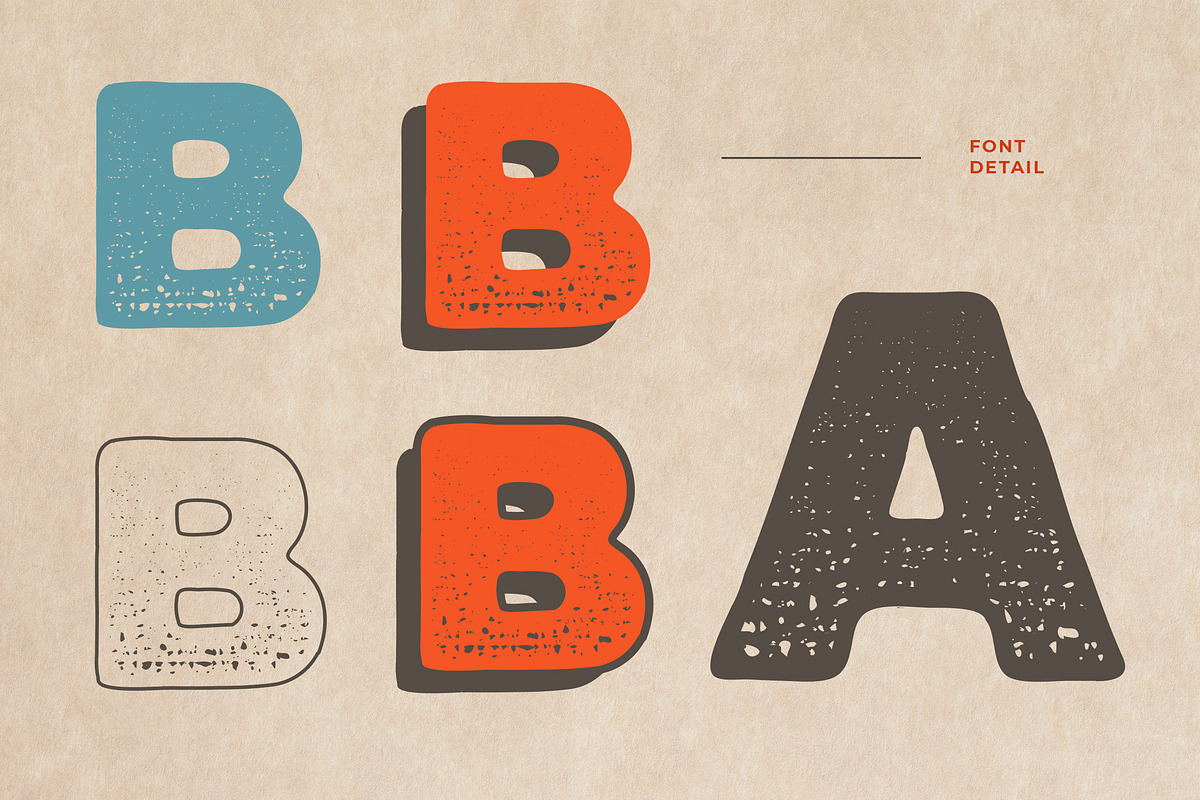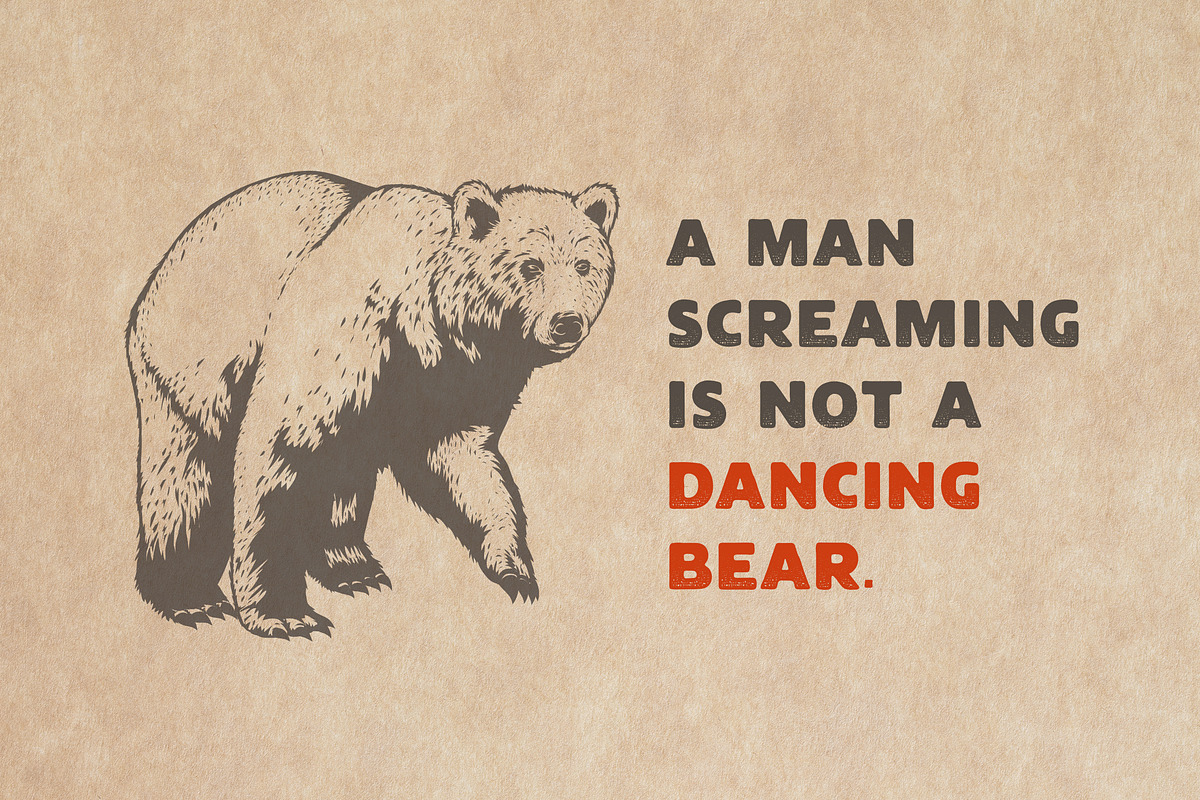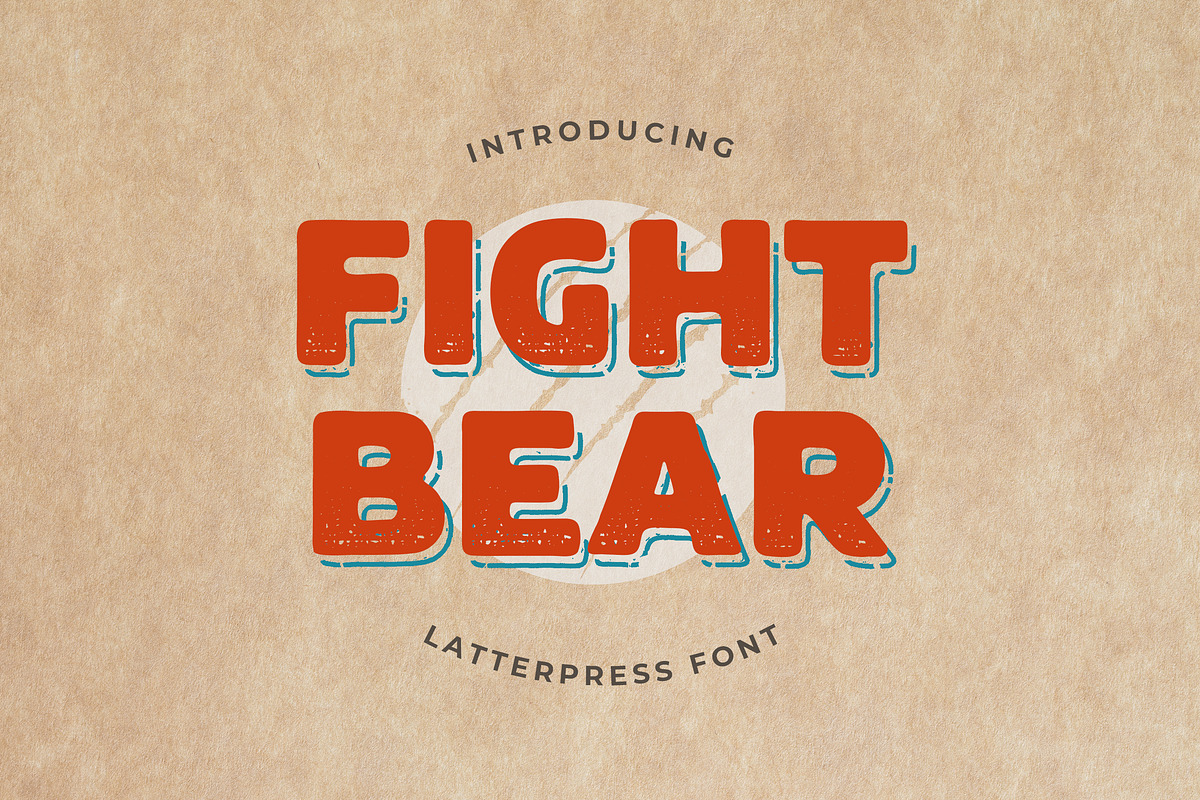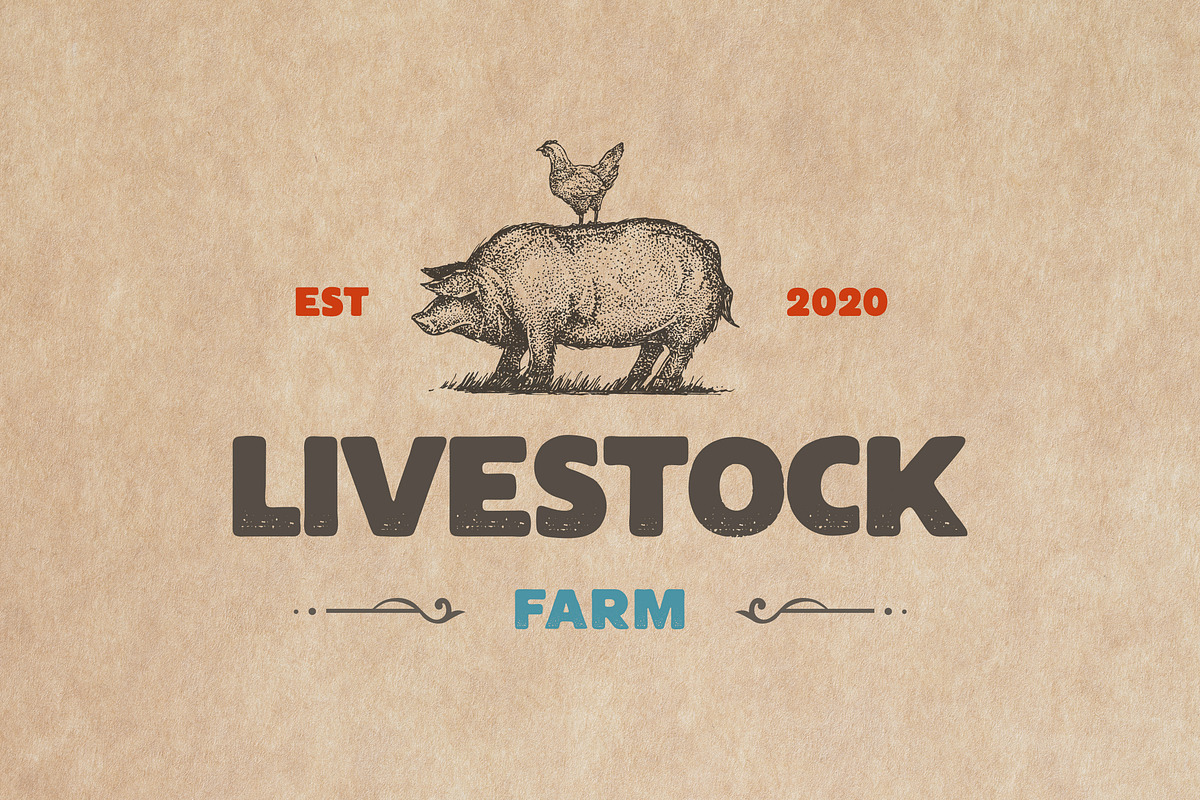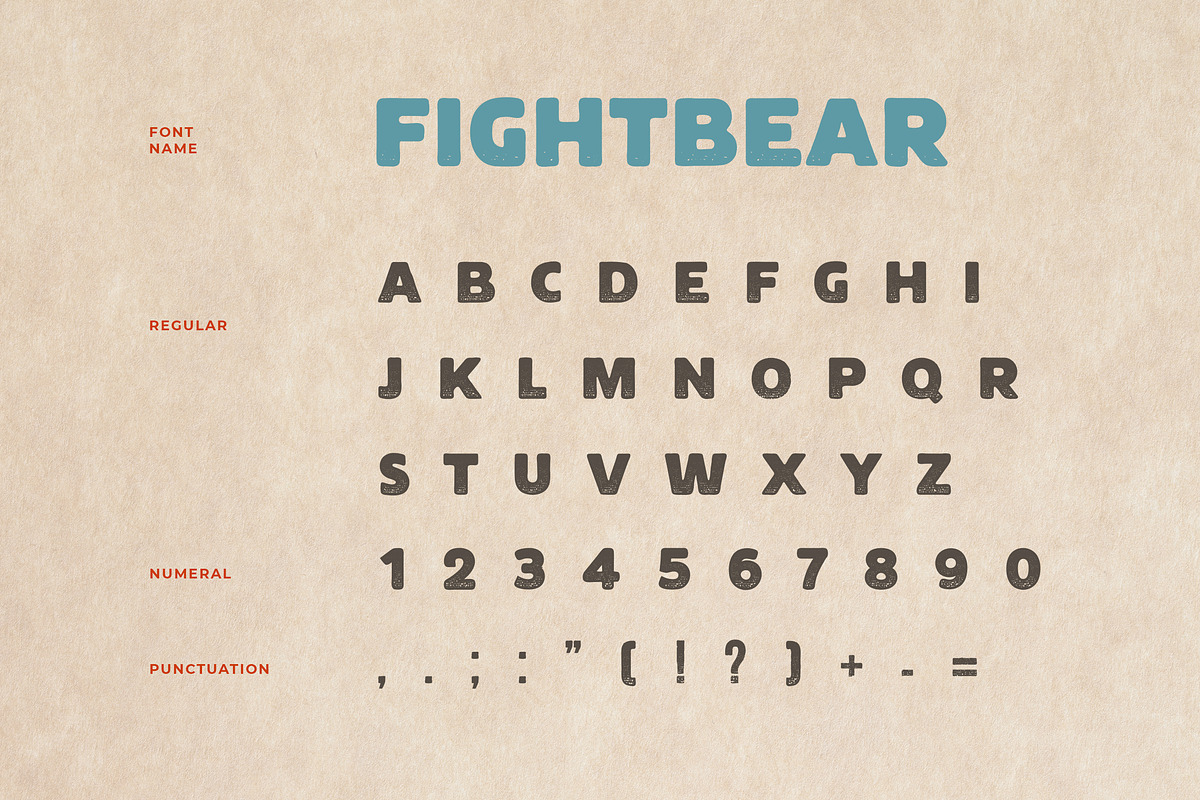
Fight Bear Display Typeface Font
Fight Bear It’s a display textured grunge typeface that has a lot of ligatures and stylistic alternates. Combines classic style fonts moderated with a touch of minimalist design, produces beautiful and elegant fonts. ery suitable to be used for the manufacture quote text, logotype, header magazine, posters, covers, main packaging, t-shirts, and more, so what are you waiting for?
- Ton of glyphs
- Fight Bear It’s a display textured grunge typeface that has a lot of ligatures and stylistic alternates.
Fight Bear Display Typeface Font by UICreative fits naturally into Branding, posters, packaging, typography.